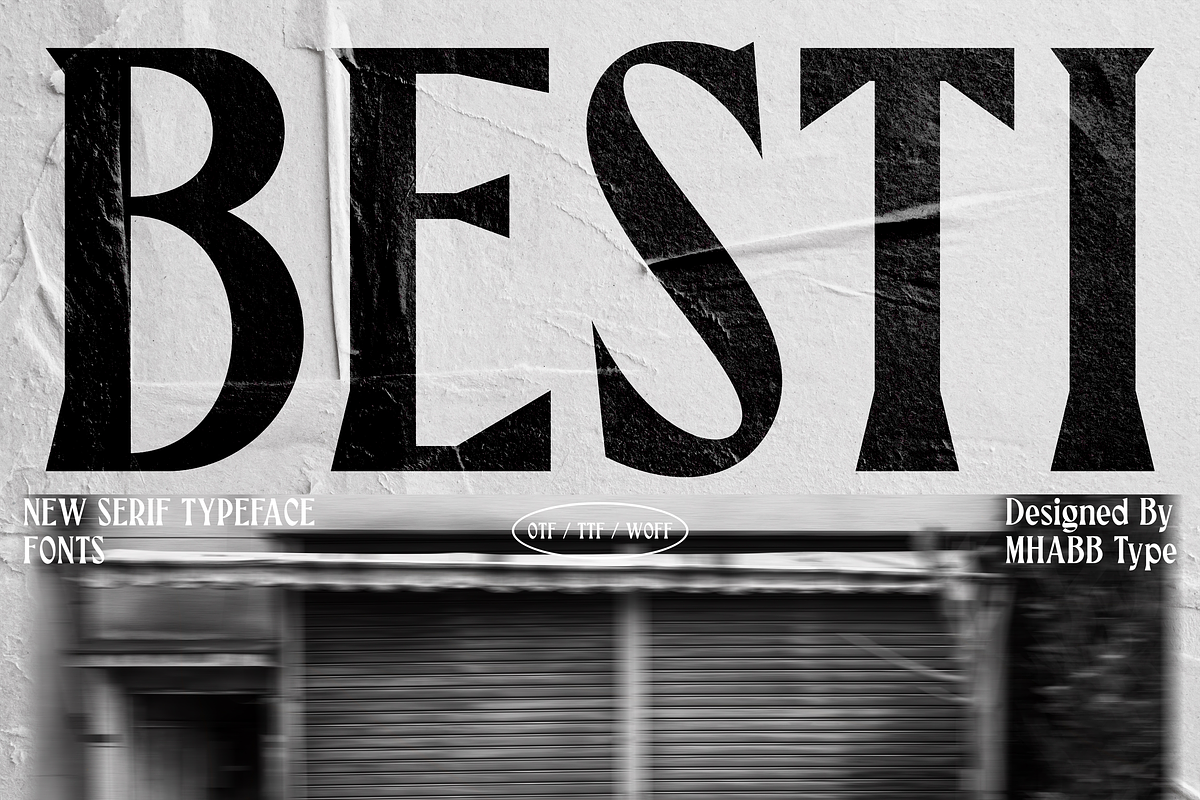
Besti Font Free Download is a clean, elegant typeface designed to bring modern sophistication to your creative projects. With its smooth curves and balanced structure, Besti is perfect for branding, editorial layouts, minimalist logos, beauty packaging, and high-end social media content.
This versatile font blends simplicity with a touch of personality—ideal for those looking to make a quiet yet powerful impact. Whether you're crafting sleek website headers or printed lookbooks, Besti offers timeless style and easy readability.
Designers love Besti for its understated charm and premium feel across both digital and print mediums. If you're seeking a font that’s as stylish as it is functional, download Besti Font Free Download today and let your designs shine with graceful modernity.